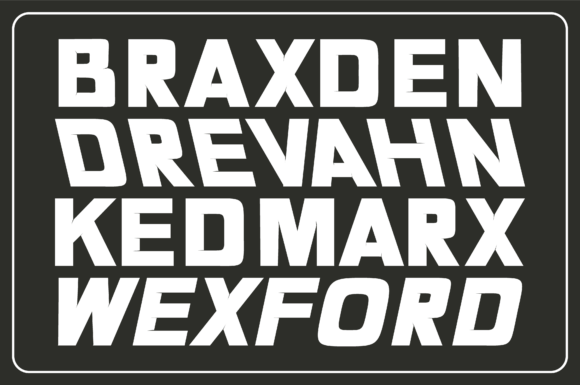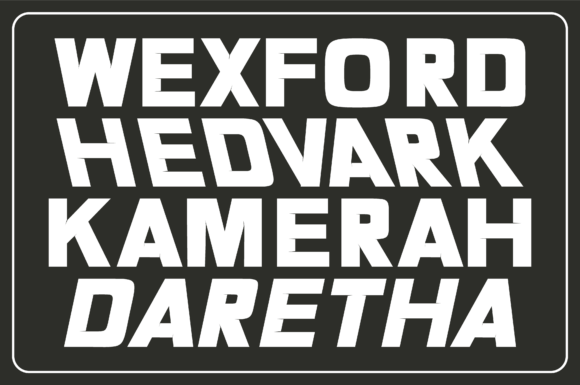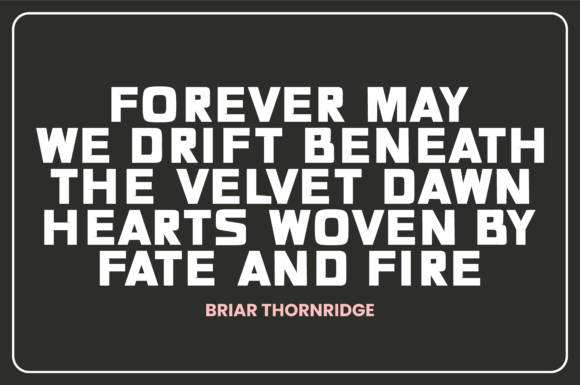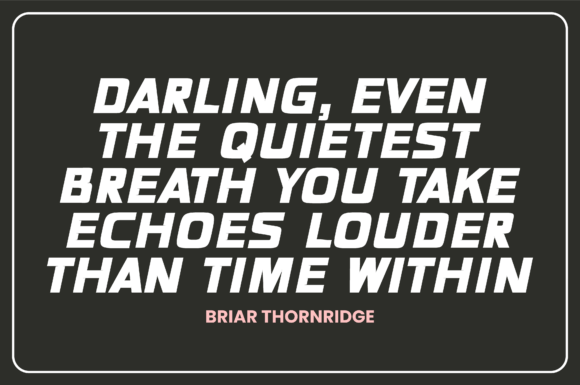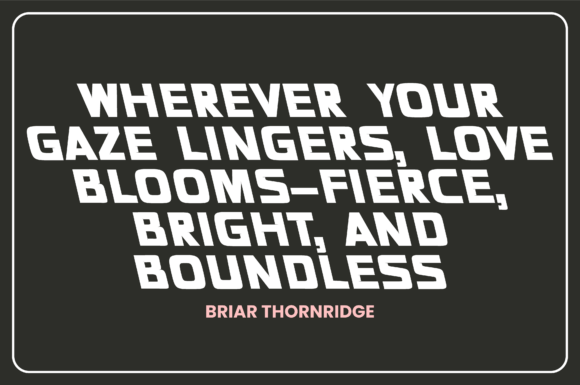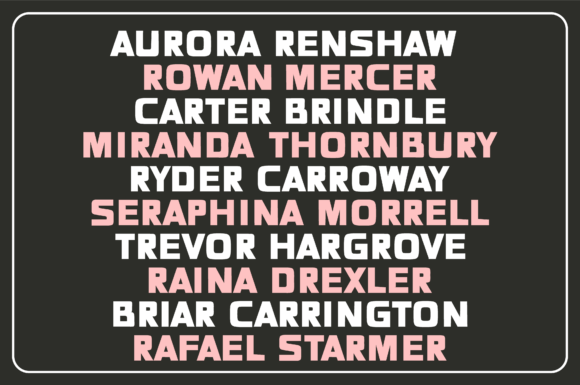
Discover the Elegance of Grinder Font: A Sans Serif Grotesque Marvel
Immerse yourself in the world of typography with Grinder, an exquisite sans serif grotesque font collection that is redefining the design landscape. This magnificent assortment boasts clean, bold, geometrical structures inspired by the principles of German and Swiss design, making it a versatile and sophisticated choice for designers and crafters alike.
The Grinder Font Collection: A Trio of Styles
Grinder encompasses three distinct styles: Regular, Italic, and Retalic, offering adaptable solutions for a wide array of design canvases. Whether you’re working on a perfume label, cosmetics packaging, magazine cover, or high-end poster design, Grinder’s sleek, elegant lines make it the quintessential choice. Its versatility extends to various applications, including manifestos, flyers, and social posts, breathing life into each word and phrase.
Inspired by German and Swiss Design Principles
The Grinder font collection draws inspiration from the renowned design principles of Germany and Switzerland, known for their emphasis on clean lines, precision, and functionality. This influence is evident in Grinder’s geometric structure, which exudes a sense of modernity and sophistication. The font’s design ensures that it can be used in a multitude of contexts, from luxury branding to editorial design.
Perfect for High-End Design Projects
Grinder’s sleek and elegant design makes it an ideal choice for high-end design projects. Its bold, geometrical structure is perfect for creating stunning visuals that command attention. Whether you’re designing a perfume label or a magazine cover, Grinder’s sophisticated aesthetic ensures that your work stands out from the crowd.
Key Features of Grinder Font
- Clean and Bold Design: Grinder’s geometric structure ensures that your text stands out with clarity and precision.
- Versatile Adaptability: With Regular, Italic, and Retalic styles, Grinder can be used across a variety of design projects.
- Elegant Lines: Perfect for high-end designs, Grinder’s sleek lines add a touch of sophistication to any project.
- Wide Range of Applications: From perfume labels to social posts, Grinder is suitable for numerous design applications.
Why Choose Grinder Font?
The undeniable style and sophistication of Grinder font ensure it quickly solidifies a spot amongst your most cherished design tools. Here are a few reasons why designers and crafters are gravitating towards Grinder:
- Unique Aesthetic: Grinder offers a fresh take on sans serif grotesque fonts, providing a unique aesthetic that sets it apart.
- High Versatility: The font’s adaptability makes it suitable for a wide range of projects, saving designers time and effort.
- Professional Quality: With its clean lines and geometric structure, Grinder exudes professionalism, making it perfect for high-end designs.
In conclusion, Grinder font is a remarkable addition to the world of typography, offering a blend of elegance, versatility, and sophistication. Its geometric structure, inspired by German and Swiss design principles, makes it a valuable asset for designers and crafters looking to elevate their work. Whether you’re working on luxury branding, editorial design, or digital content, Grinder is poised to become an indispensable part of your design toolkit.
With Grinder font, you’re not just choosing a typeface; you’re embracing a design philosophy that prioritizes elegance, versatility, and professionalism. Join the ranks of designers who appreciate the beauty of well-crafted typography and discover the impact Grinder can have on your work.